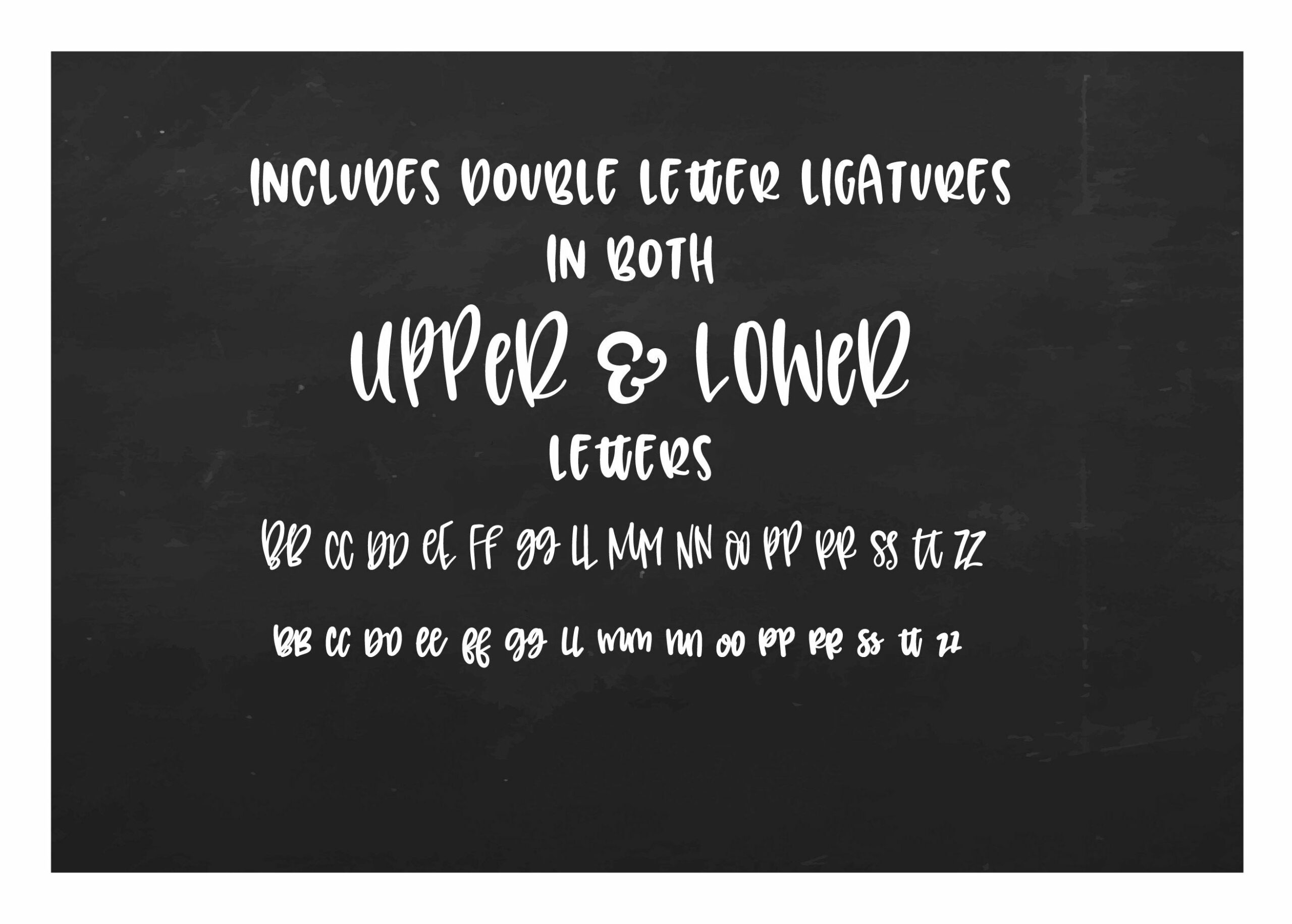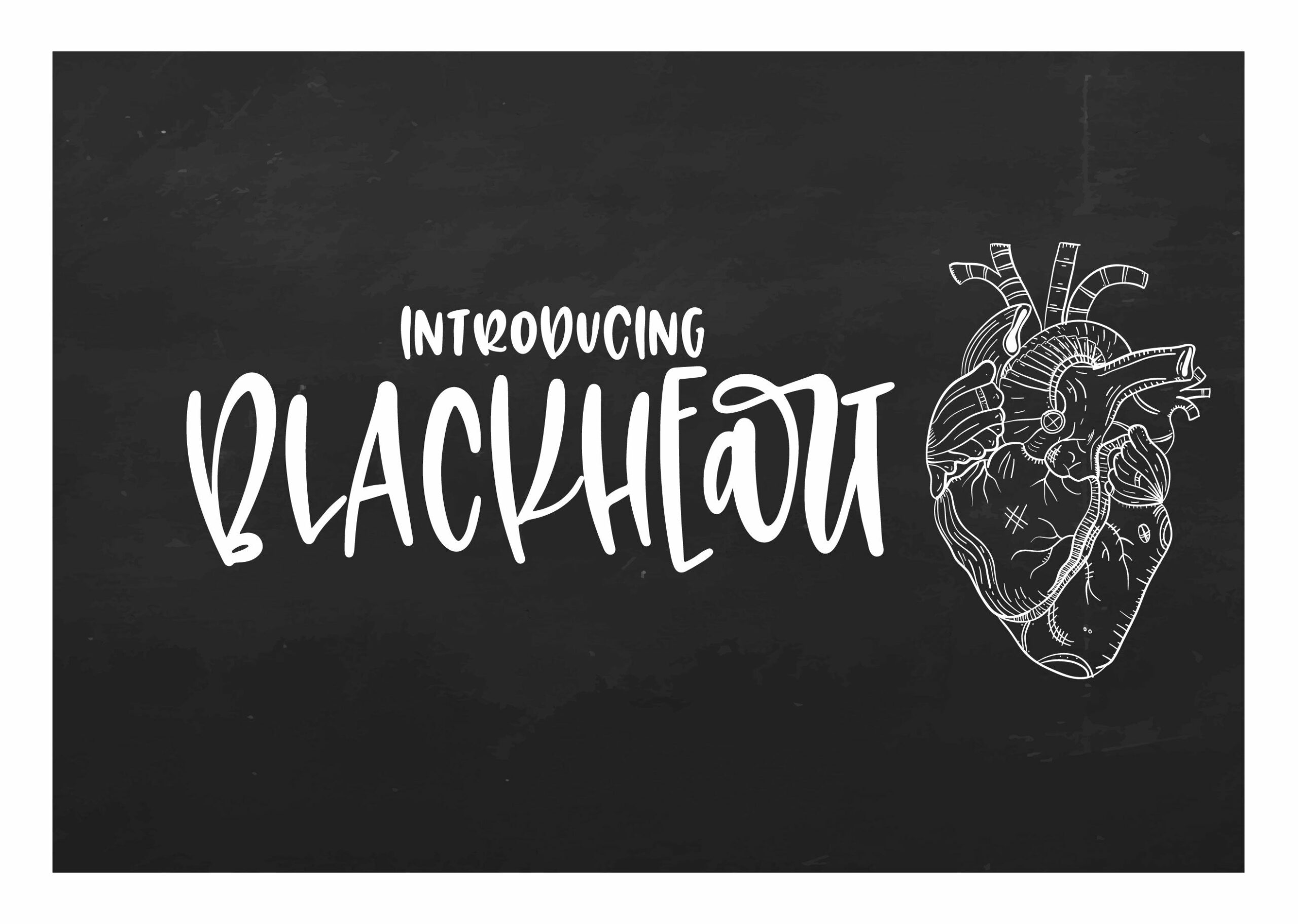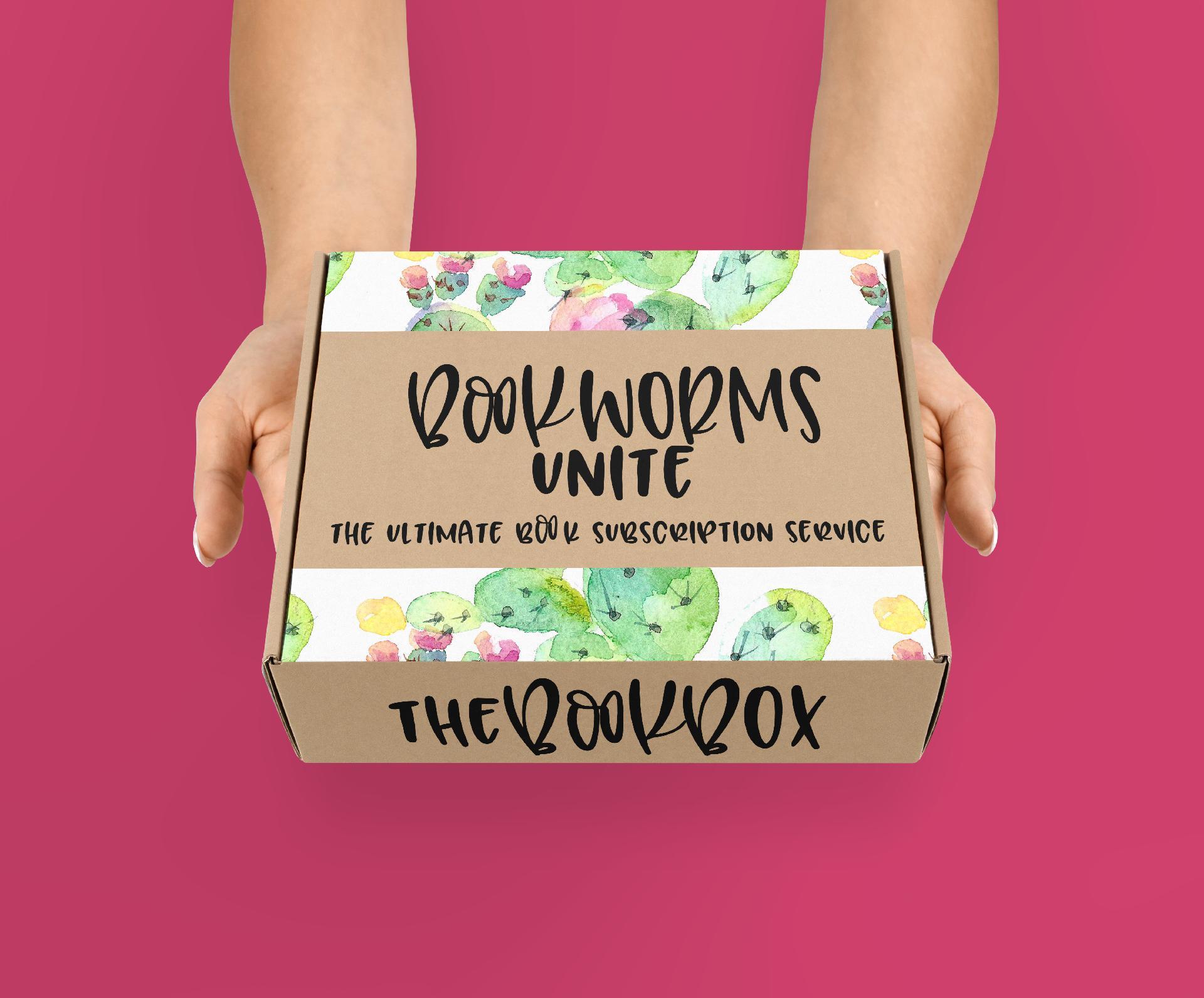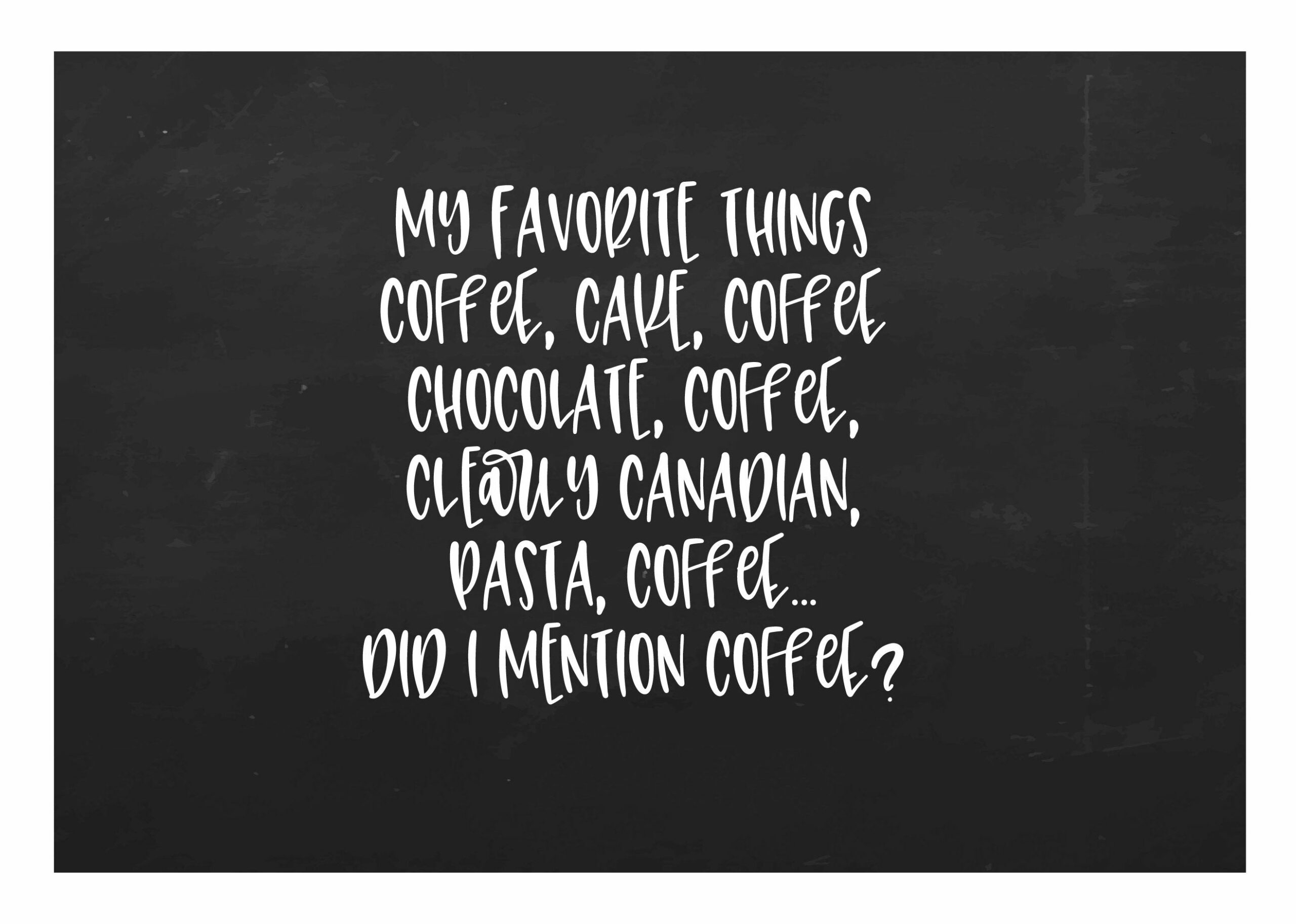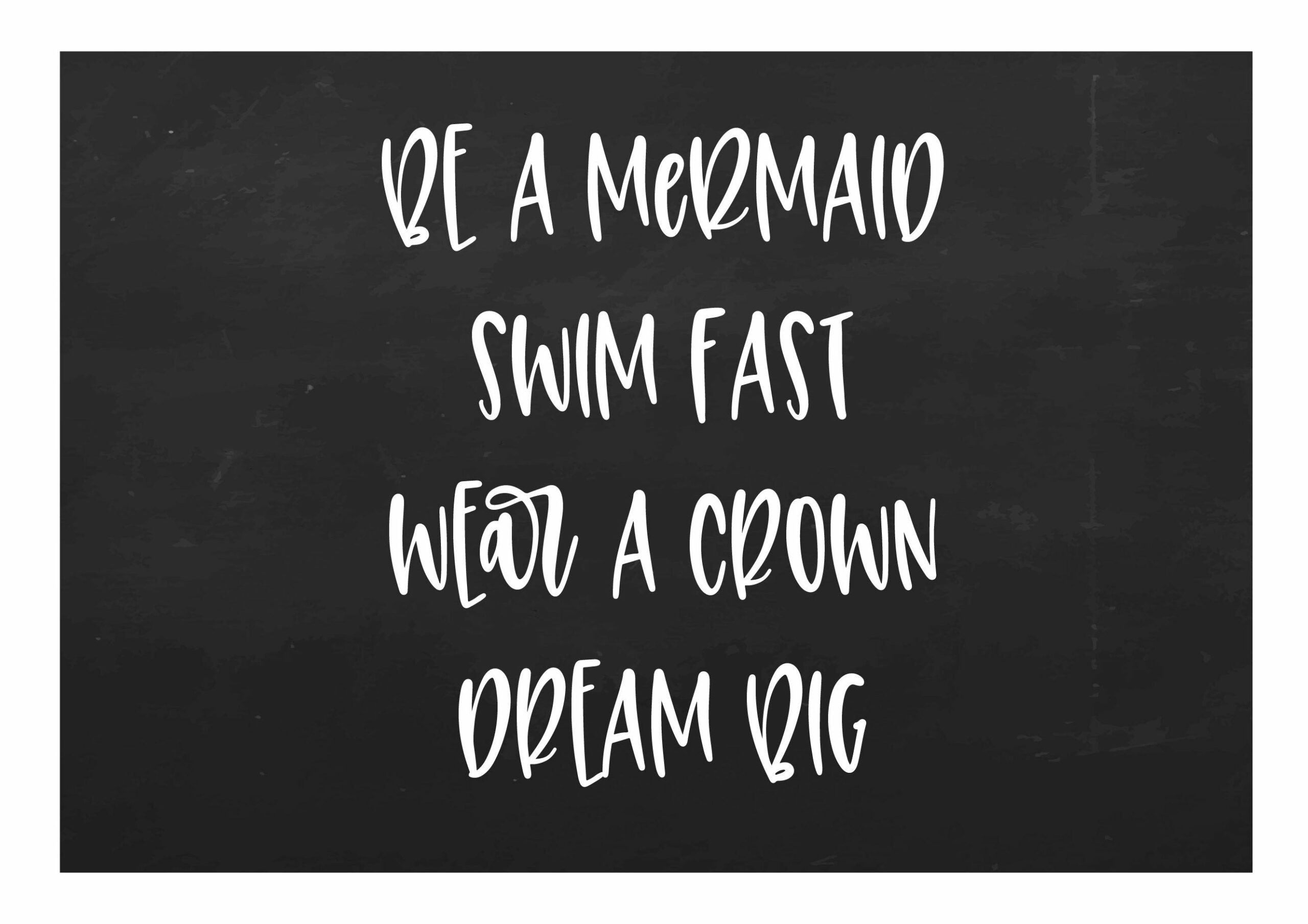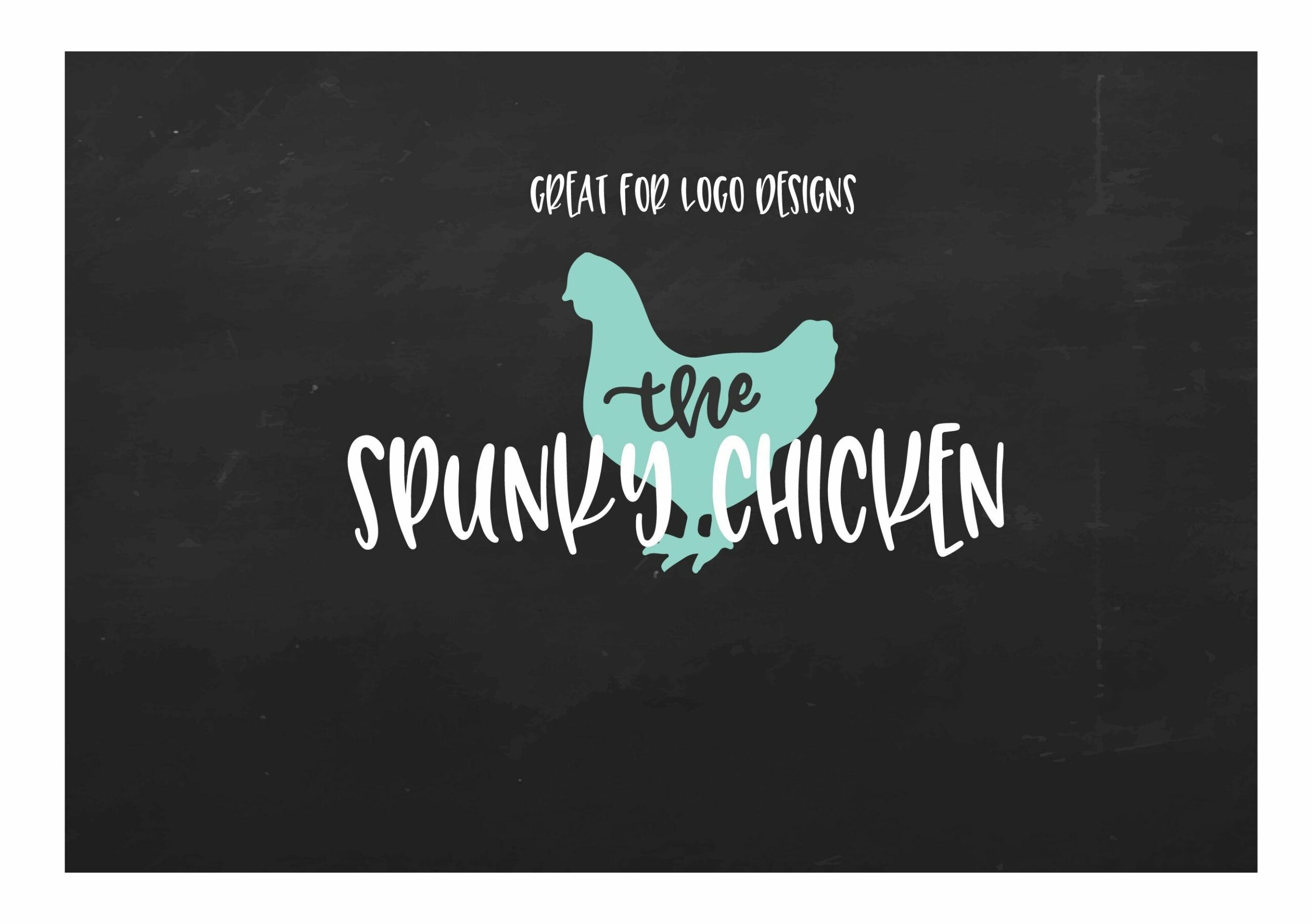
Blackheart is a super fun and quirky mixed case font from OTSS. Includes upper, lower, punctuation, numbers and double ligatures! Great for logos, stationary design, etc.